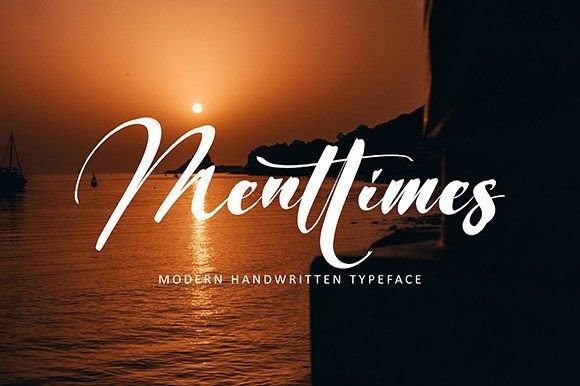
Step into the world of Menttimes, a mesmerizing script font that will captivate your designs with its intricate beauty. Let your words flow effortlessly, leaving an unforgettable mark on every project you touch.
Crafted with precision by the talented Pineungtype & Missinklab, Menttimes is not just a font; it's a gateway to creativity and expression. Its elegant curves and fluid strokes will transform your designs into captivating masterpieces, leaving viewers spellbound.
Whether you're creating stunning quotes to inspire, crafting eye-catching logos to leave a lasting impression, or designing blog headers that entice readers to delve into your thoughts, Menttimes will elevate your words to new heights. Its versatility knows no bounds, making it perfect for posters that demand attention, branding that exudes sophistication, lettering that speaks with grace, and invitations that invite guests to an unforgettable experience.
With Menttimes at your fingertips, stationery becomes an art form, each letter a delicate brushstroke that conveys your message with undeniable charm. Its presence will adorn your designs, adding a touch of elegance and a hint of whimsy that will capture the hearts of all who behold it.
The world of design awaits your touch, and Menttimes is the font that will guide you to greatness. Its intricate script will transform your creations into captivating works of art, leaving an enduring impression that will never fade.
Embrace the beauty of Menttimes, and let your words dance across the page with grace and style. The possibilities are endless, and the results will be unforgettable.